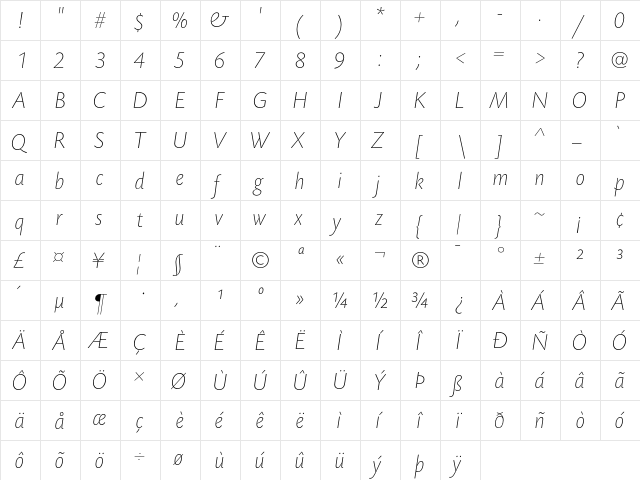
TodaySB-ExtLigIta Regular
Design Context for TodaySB-ExtLigIta Typeface
TodaySB-ExtLigIta is a composed and adaptable typeface that performs quietly and consistently across a wide range of design contexts.